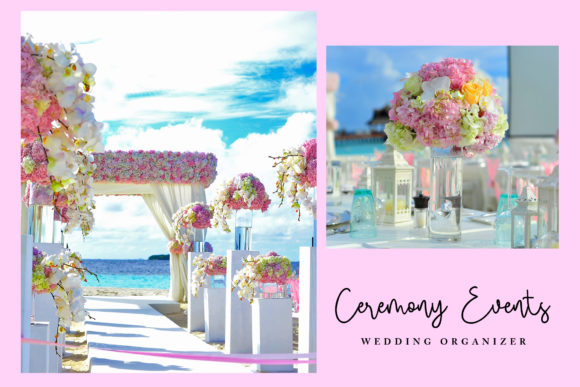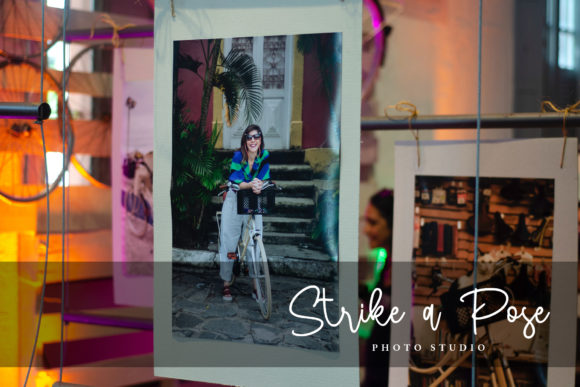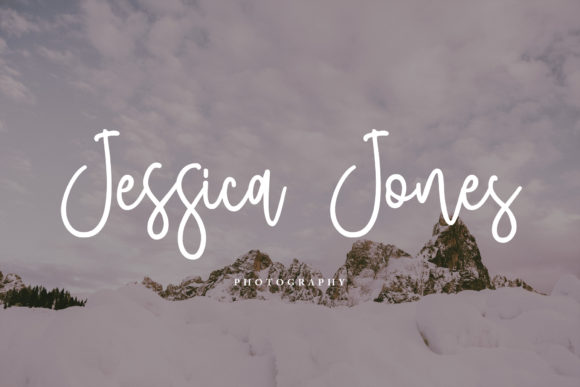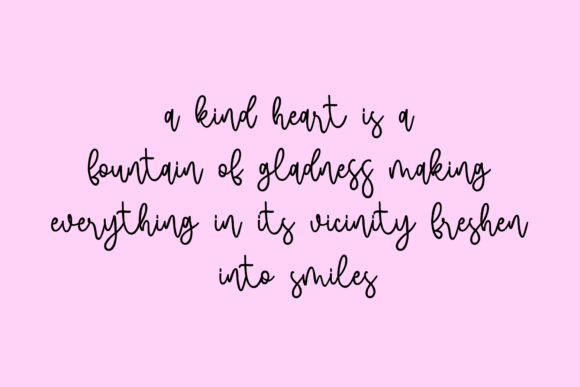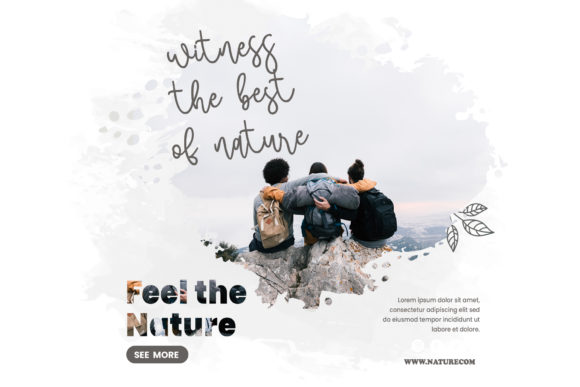
Campbell Font
About Campbell Font
Campbell is a stylish modern calligraphy font with a casual chic flair. It is perfect for branding, wedding invites, cards and so much more.